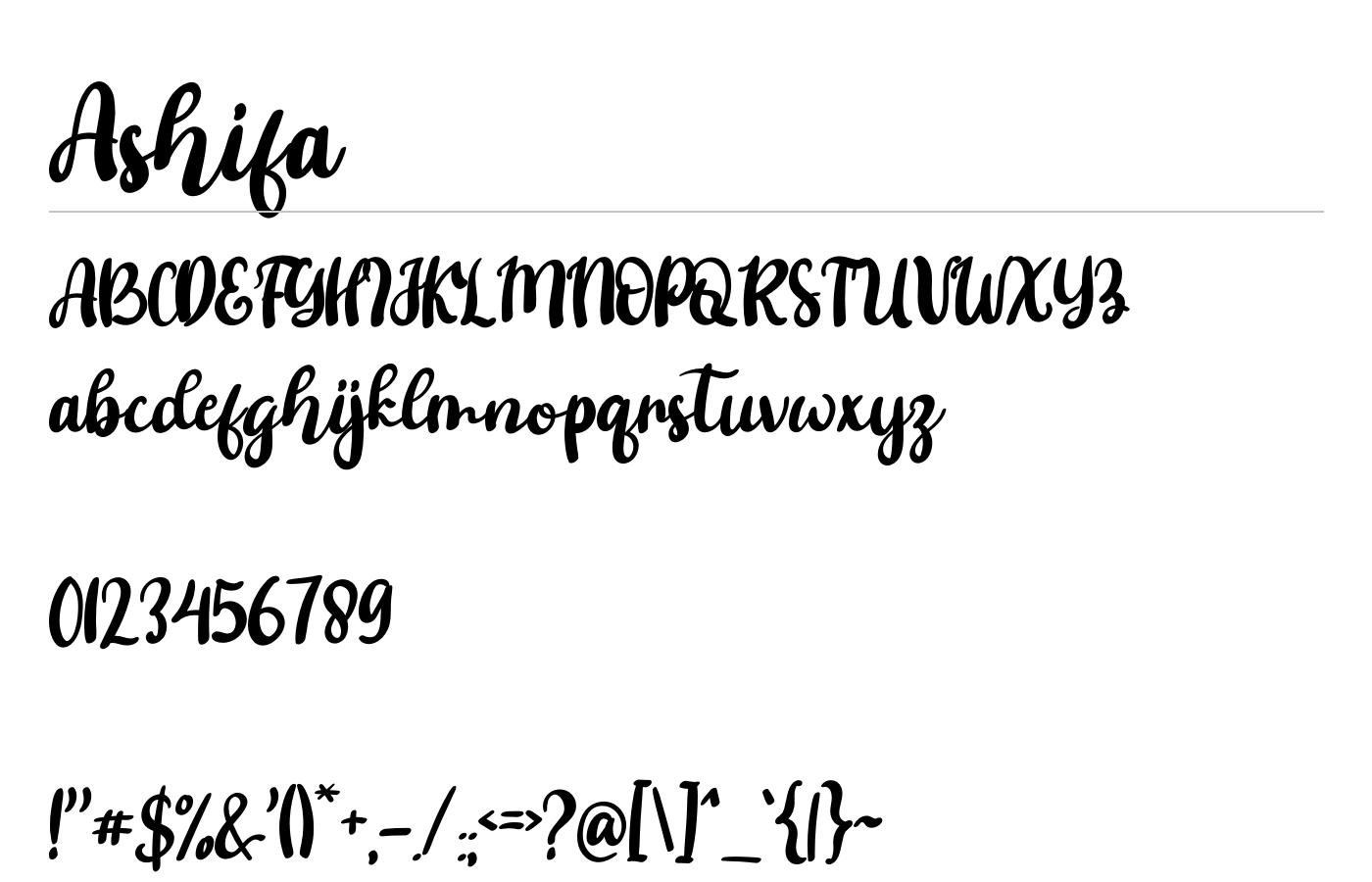
Ashifa is a lively and elegant script font featuring smooth, flowing strokes with a moderate contrast that evokes a personal, handcrafted feel. Its rounded letterforms and charming connections make it perfect for adding warmth and friendliness to branding, invitations, and creative projects where a stylish yet approachable tone is desired. This font works well in logos, headlines, and decorative text that benefit from its playful, artistic personality.
Ashifa Font
About Ashifa Font